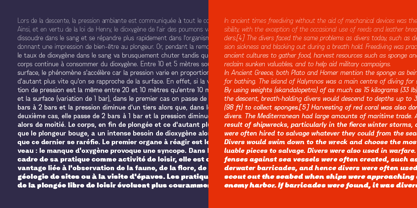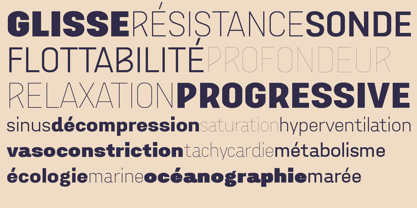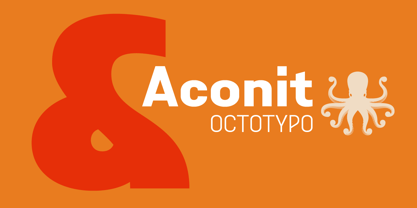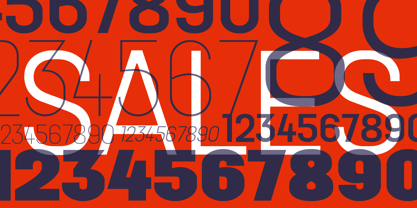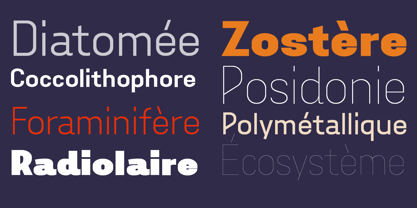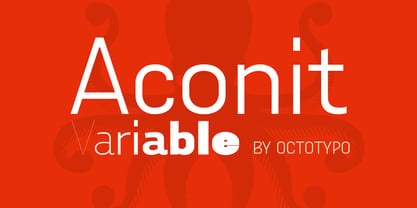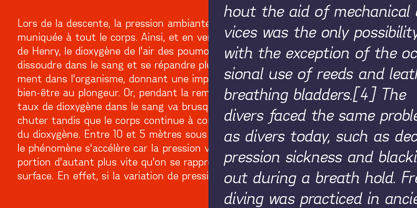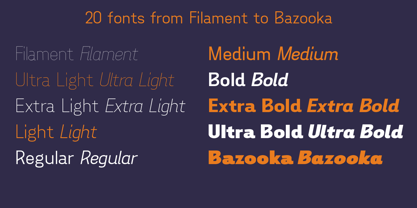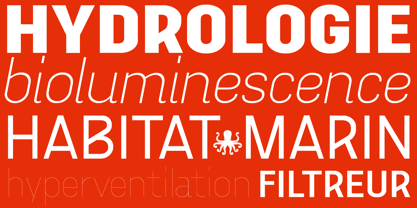
Aconit Variable
by Octotypo
The Aconit Variable Font Family was designed by Julien Janiszewski and published by Octotypo. Aconit Variable contains 2 styles and family package options. More about this family
Aconit is a contemporary sans serif font family that uniquely blends elements of tech and Art Nouveau. It offers an extensive range of 10 weights, from the delicate Filament to the robust Bazooka, with each weight complemented by its italic variant. The family supports a broad spectrum of languages and includes a comprehensive set of arrows, making it incredibly versatile. Aconit is the perfect choice for graphic design and poster displays, offering a modern yet artistic touch. Its versatility extends to web applications, signage, video games, and printing, ensuring that it can meet the demands of various projects. Whether you're aiming for sleek digital interfaces or striking print layouts, Aconit provides the ideal typographic solution, balancing functionality with aesthetic appeal.